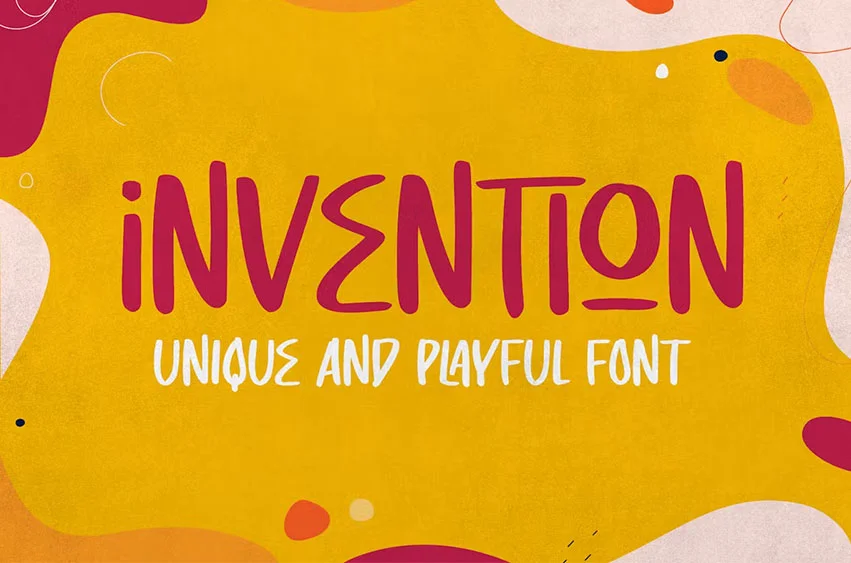
Invention Unique Display Font is unique, This will add a very unique and powerful touch to your design. This font is PUA encoded which means you can access all the glyphs and sweeps easily!